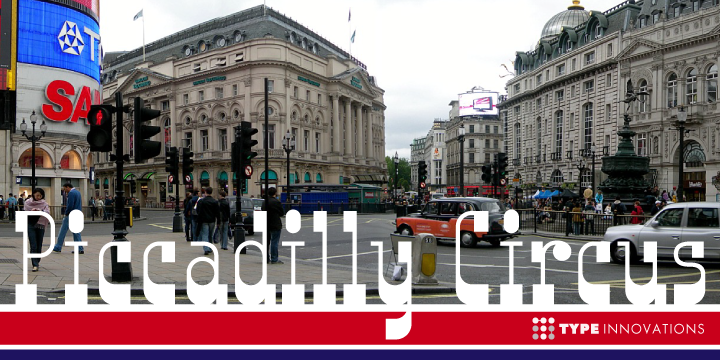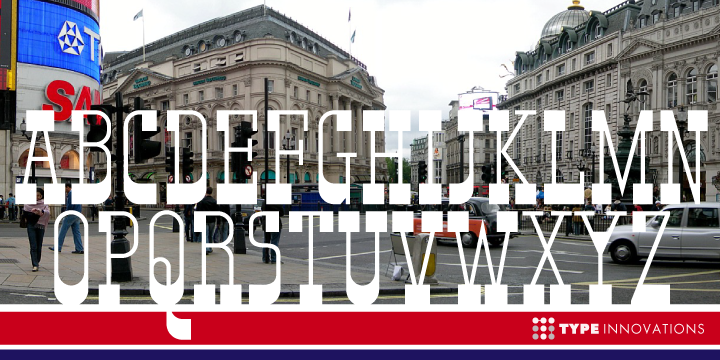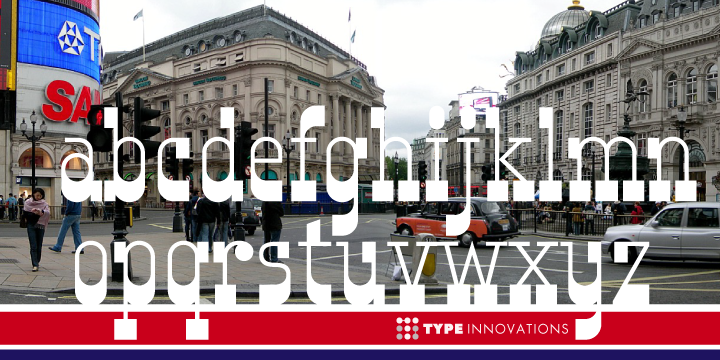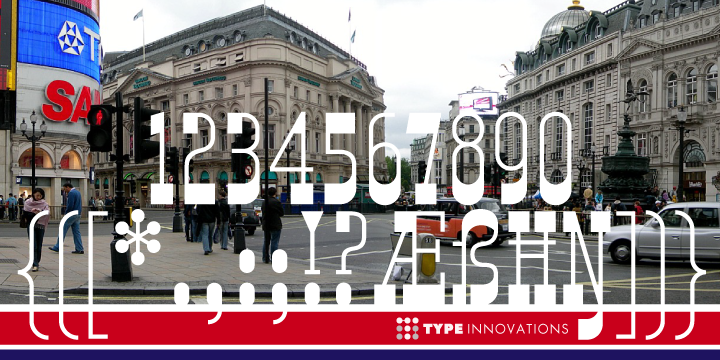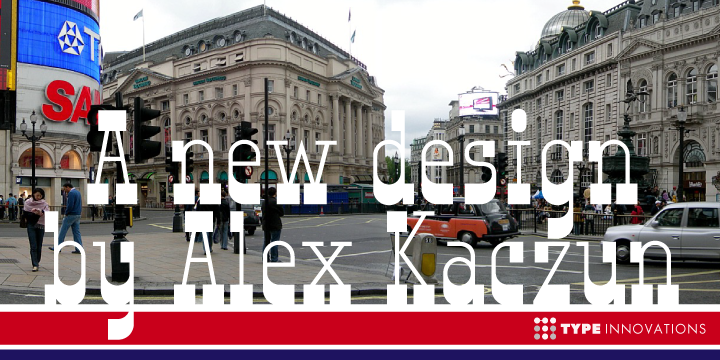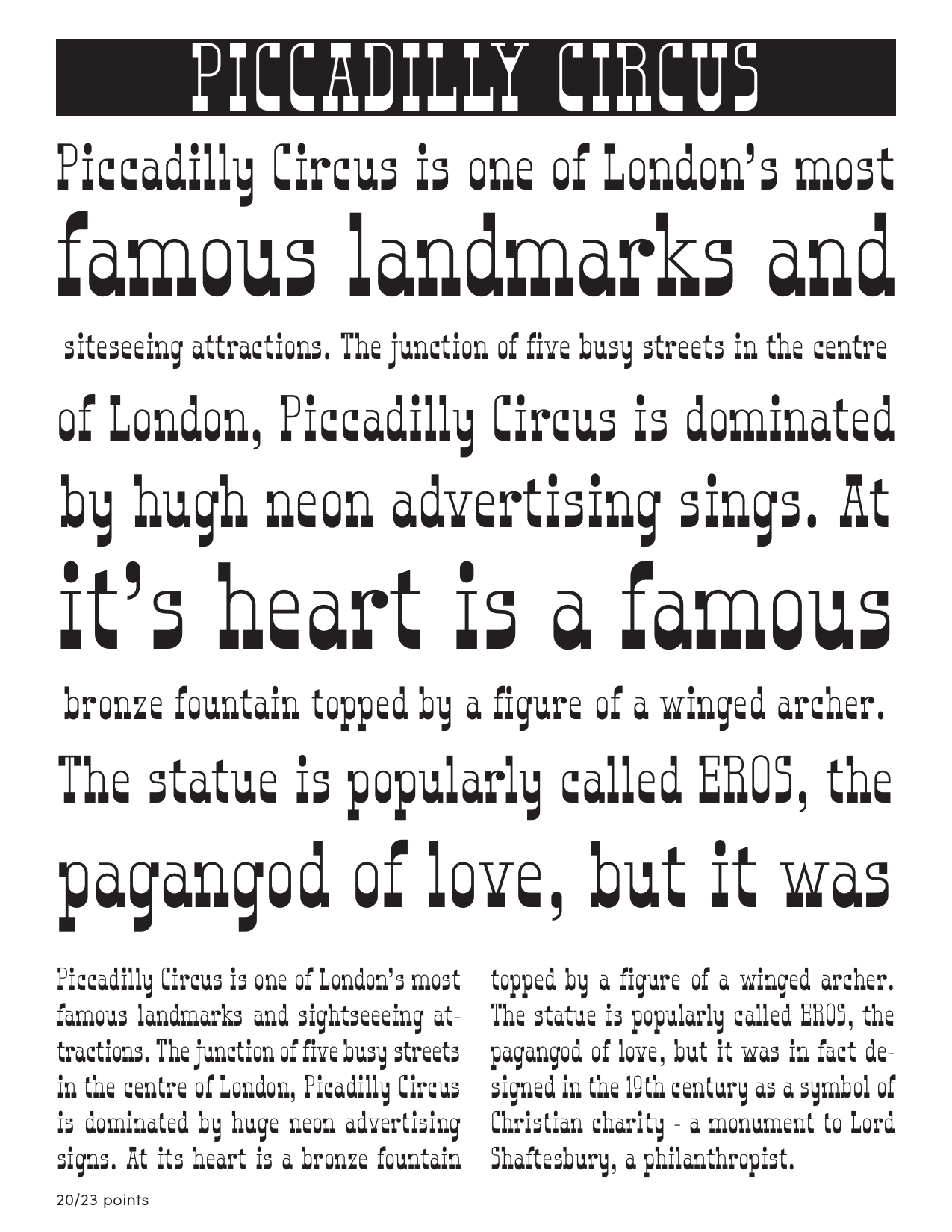
Piccadilly Circus
“Piccadilly Circus” is an original design by Alex Kaczun. Piccadilly Circus takes you back to Old London and is reminiscent of billboards and neon signs which made the area famous. It’s a busy spot, and it is said that a person who stays long enough at Piccadilly Circus will eventually bump into everyone they know. So, take a stroll down the historic downtown shopping district and enjoy the shops, boutiques and pubs.
This whimsical font is great for display posters, banners and carnival signs and is sure to captivate your audience. A decorative and cute alternative for any advertisement.